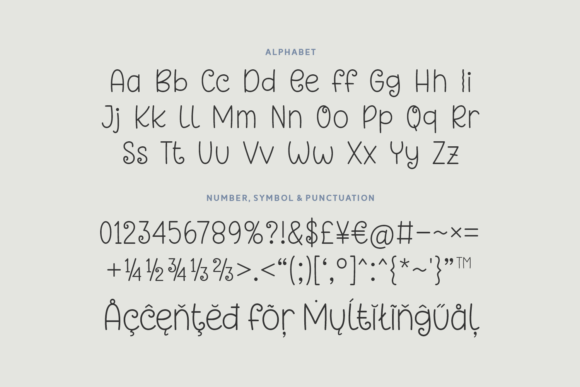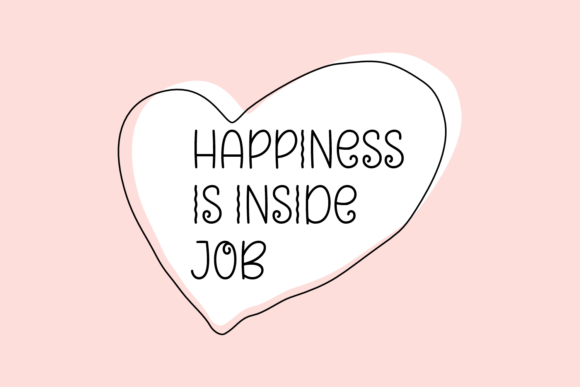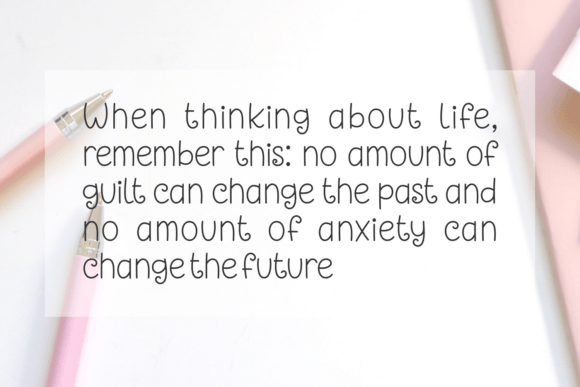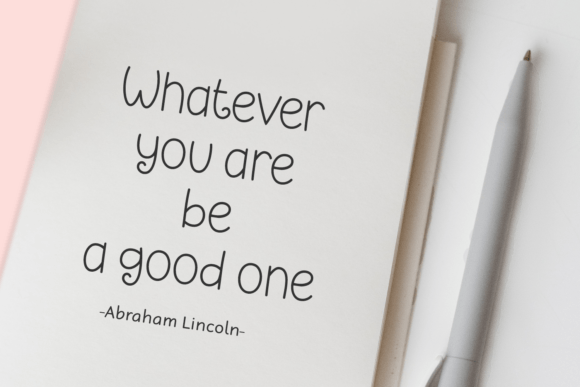
Introduction to Peace Place Font
Peace Place is a cute handwritten font.
You will fall in love with the stylish typographic designs you make with his fun typeface It looks perfect on cards, labels, logos, fabric prints, websites, and many more.
Peace Place Font offers exceptional quality and versatility, making it a valuable addition to your design toolkit. Whether you’re creating for personal projects or commercial use, Peace Place Font delivers professional results.